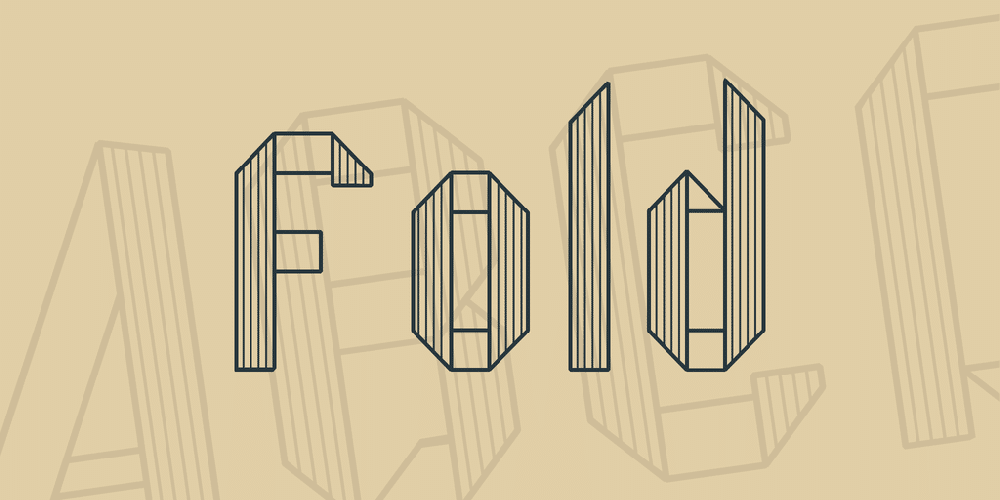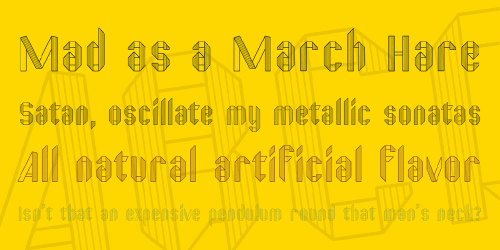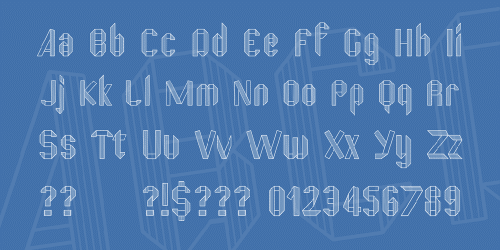
Fold Font USED in the title. A sans-serif made by folding strips of paper into letters. The spacing is based on blackletter. The range of characters is slowly improving. The design needs a large size to work well, at least 120 pixels. The origami ornaments are a bonus.
- Designer: James Kilfiger